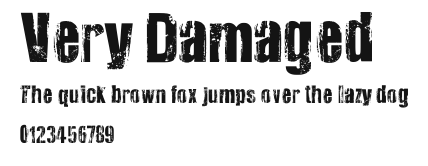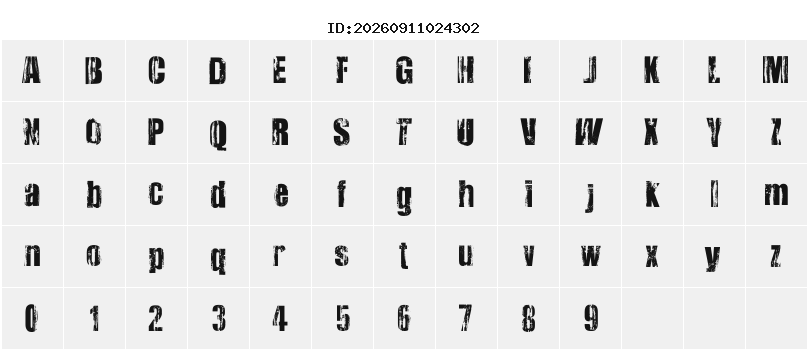
• Font Name: Very Damaged
• Full Font Name: Very Damaged Bold
• Designer: Galdino Otten
Very Damaged.ttf is a modern, elegant sans-serif font designed for ultimate readability and visual harmony. Perfect for branding, headlines, web design, and print materials.